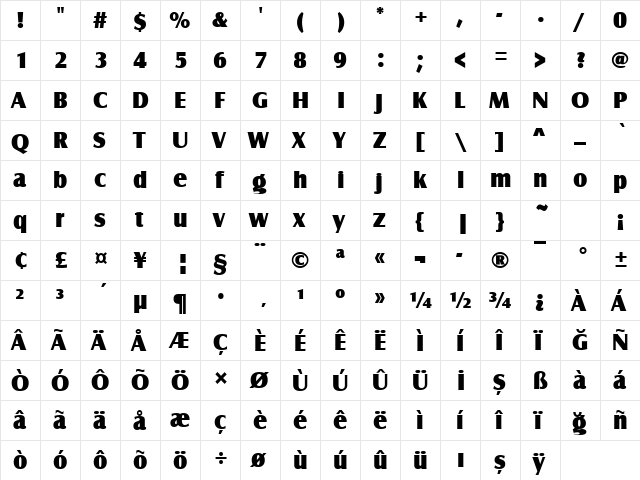
00841 Regular
Design Context for 00841 Typeface
00841 is a composed and adaptable typeface that performs quietly and consistently across a wide range of design contexts.